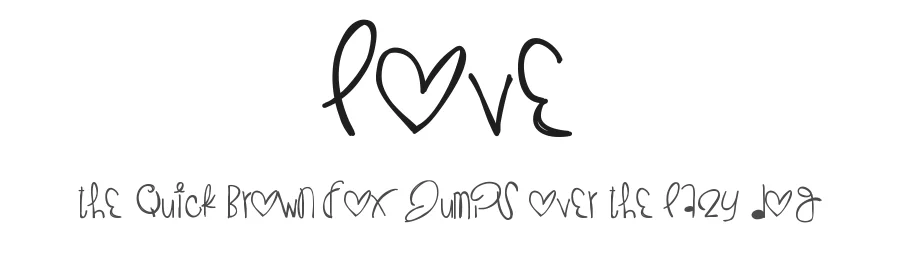
About Love Me Font
Love Me is an enchanting handwritten font. This versatile typeface has a wide spectrum of applications, ranging from greeting cards to headlines, and is guaranteed to add a romantic feel to your next project.
Love Me is perfect for product packaging, branding projects, magazines, social media, weddings, or just used to express words above the background.
Love Me Specifications
Love Me Font is a script font that shines as a display or heading face. Pair it with a clean sans-serif or serif font for body text β the contrast creates a clear hierarchy while the two styles stay balanced and easy to read.